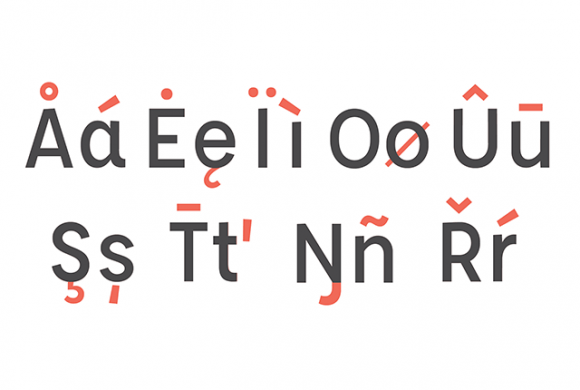
Affogato – Sans-Serif Typeface
Affogato font family is a sans-serif font, designed and shared by Eric Lobdell.
Affogato suitable for work purposes, including over 1,250 font glyphs, uppercase, lowercase and special characters, numbers, diacritics, and language support for all of Europe